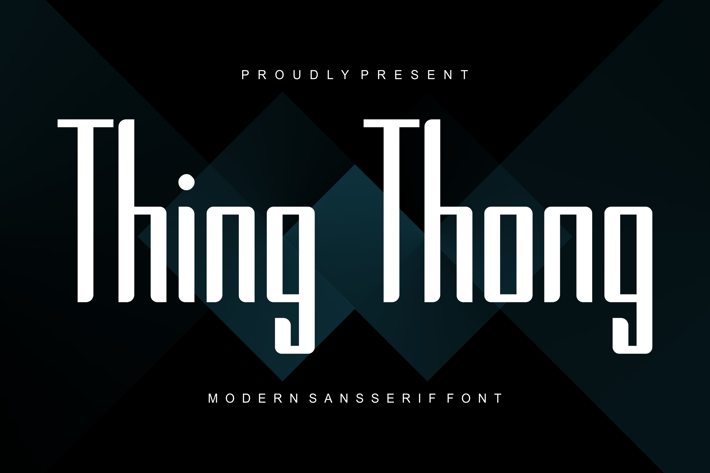
Thing Thong - Tall & Condensed Font
Presenting Thing Thong - Font is suitable for badge, labels, logo, branding, magazine, poster and etc. Our fonts have Uppercase & Lowercase, Numeral & Punctuation, Multilingual support and Opentype Features. For Amazing designs you can mix with other fonts as a complement.